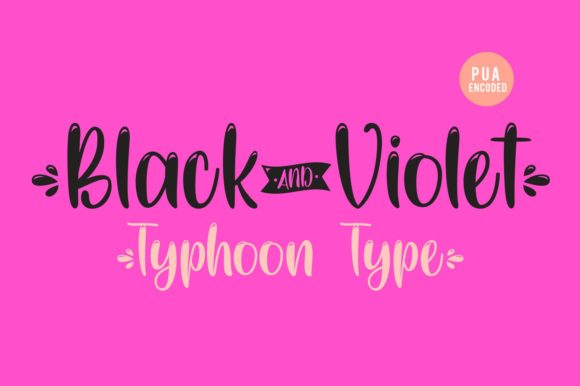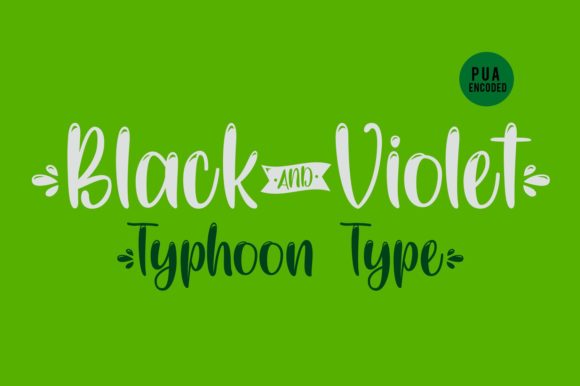
The Magic of Black and Violet Font
Have you ever been scrolling through your Instagram feed, and suddenly, a beautifully crafted quote or graphic catches your eye? You can’t help but stop and admire the elegance of the font used. For designers and creatives, finding the perfect font can make all the difference between a good design and a great one.
That’s where the Black and Violet Font comes in – a magical script font carefully created to add a touch of sophistication to any design. Whether you’re looking to elevate your Instagram posts or create beautiful calligraphy scripts for DIY projects, this font is sure to turn your creative ideas into stunning works of art.
As a valuable addition to any designer’s toolkit, the Black and Violet Font offers endless possibilities for creativity and self-expression. With its unique blend of elegance and whimsy, it’s no wonder this font has become a go-to choice for designers looking to add a touch of magic to their designs.
Key Features of Black and Violet Font
- Font Family: Black and Violet is a unique font family with multiple styles, including regular, bold, italic, and bold italic.
- Character Count: The font family includes over 1,000 characters, including Latin, Cyrillic, and Greek alphabets, as well as punctuation marks and symbols.
- Unique Characteristics: Black and Violet features a distinctive blend of modern and vintage elements, with intricate details and subtle texture, making it suitable for creative and artistic projects.
Designer Review: Black and Violet Font
Overall, I think Black and Violet Font is a unique and interesting font, but it has its strengths and weaknesses. Here’s my honest review:
- Unique aesthetic – This font stands out with its bold, black characters and delicate violet accents.
- Good for creative projects – Its quirky style makes it perfect for artistic projects, such as graphic novels, posters, or advertising campaigns.
- High-quality typography – The font’s design is well-crafted, with clear and readable text.
- Limited versatility – The font’s bold and playful style may not be suitable for formal or professional projects.
- Not ideal for large blocks of text – The font’s unique aesthetic can become overwhelming when used extensively.
- May require adjustments for optimal use – The font’s bold style can sometimes clash with other design elements.
Overall, I think Black and Violet Font is a great choice for creative projects where you want to make a statement. However, it may not be the best fit for more formal or traditional designs.
Use the Black and Violet font to add a touch of sophistication and elegance to your designs.
Pair it with other bold fonts to create a striking contrast.
Experiment with different font sizes and colors to achieve the desired effect.
The Black and Violet font is ideal for:
Editorial and design publications